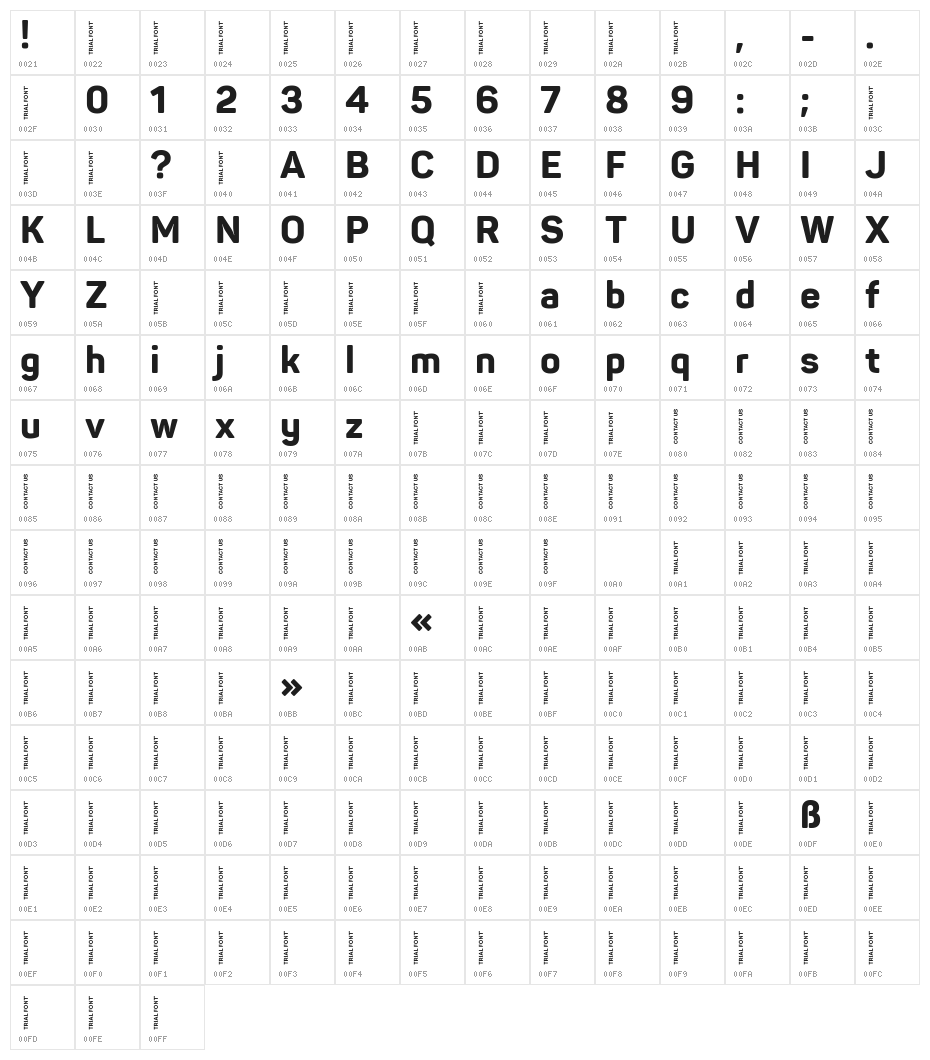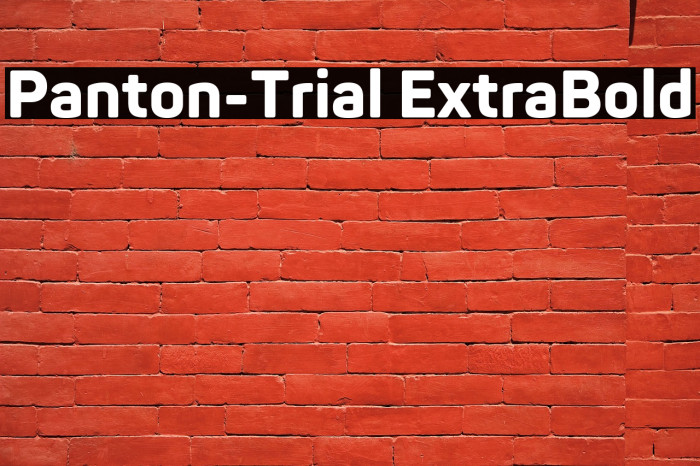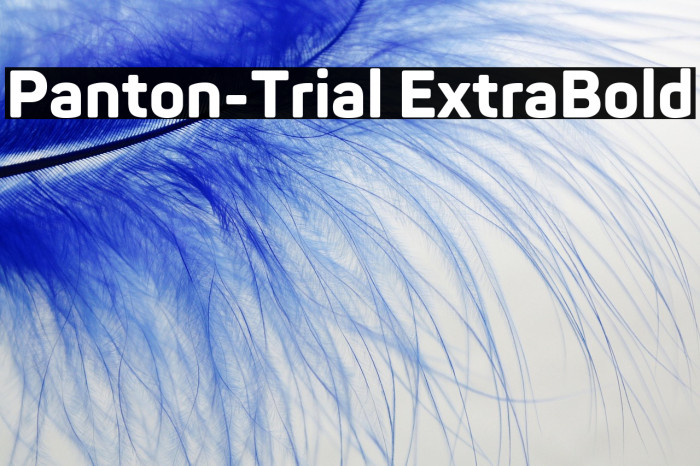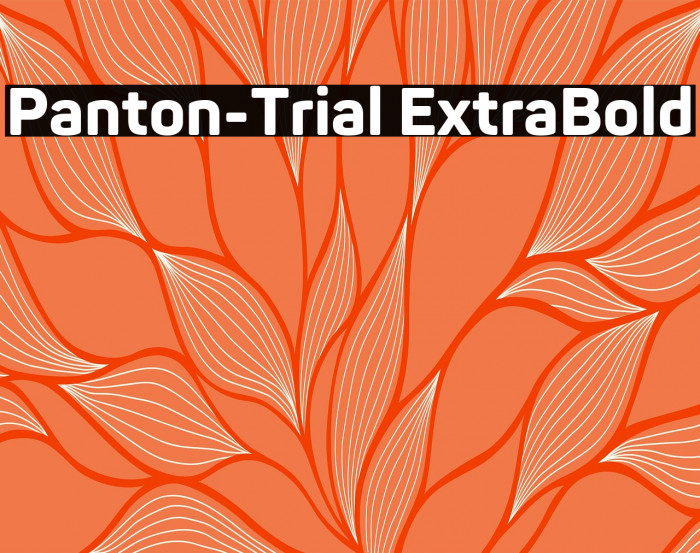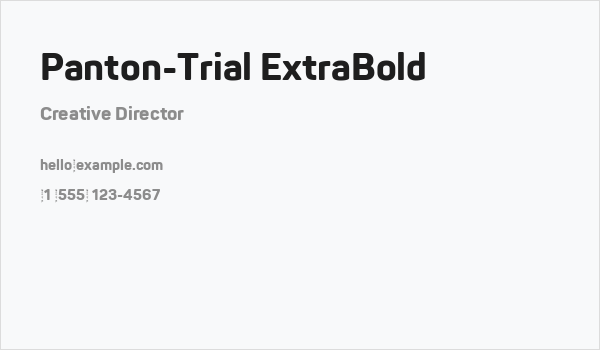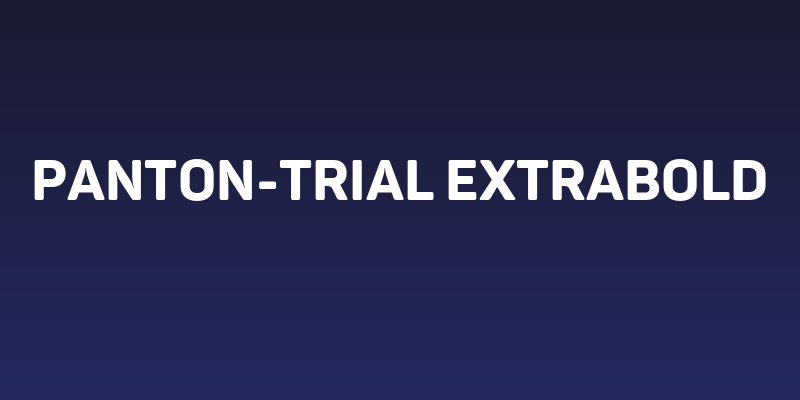
Panton-Trial ExtraBold Font
Panton-Trial ExtraBold Description
This font features a bold and modern sans-serif design, characterized by its clean lines and geometric shapes. The uppercase and lowercase letters maintain a consistent weight, providing a strong and uniform appearance. The numerals are clear and easy to read, complementing the overall style. Special characters are designed with the same boldness, ensuring they stand out effectively. The font's structure is well-suited for digital and print media, offering versatility across various applications.